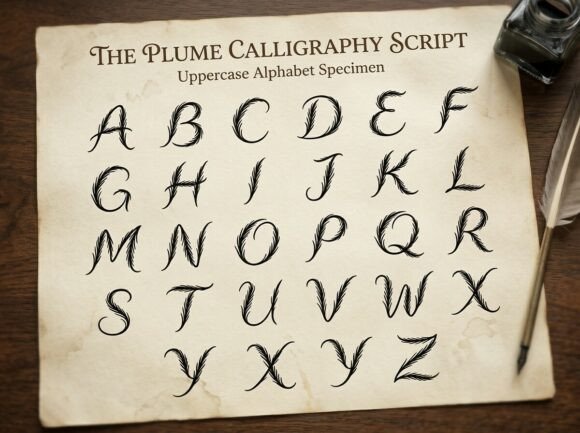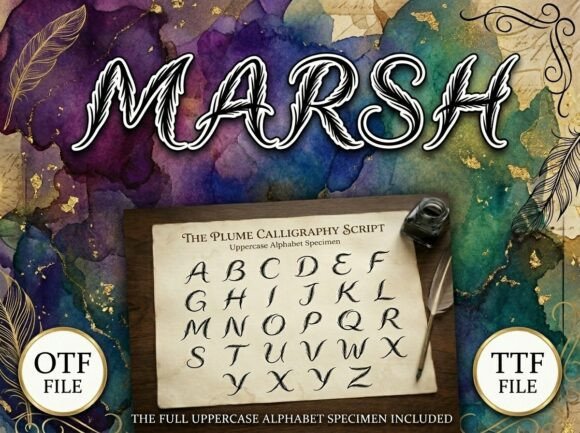
Introduction to Marsh Font
As a designer, you’ve probably been there – staring at a blank canvas, trying to come up with the perfect idea for a creative project. The blank page can be daunting, but sometimes all it takes is the right font to spark inspiration. For those who want to make a statement, Marsh Font is here to save the day.
This stunning decorative display font is designed to be the center of attention, featuring unique artistic elements and a strong visual personality. With Marsh Font, you’ll be able to add a touch of high-quality elegance to any design, from bold headlines to artistic logos and creative packaging. Whether you’re working on a design project or just looking for a unique design resource, Marsh Font is a valuable addition to your toolkit.
With its polished finish and versatility, Marsh Font is the perfect choice for designers who want to break away from the ordinary and create something truly special. And the best part? With its transparent background and professional standard files, you can use Marsh Font with confidence, knowing it will look great on any device.
Key Features of Marsh Font
- High-quality, professional font suitable for creative projects and design resources.
- Includes a range of font sizes, from 12 to 72 points, to accommodate various design requirements.
- Designed with a high resolution of 300 DPI, ensuring crisp and clear text rendering.
- Unique characteristics include a modern, elegant design aesthetic and a wide range of font styles to suit various creative projects.
Honest Review: Marsh Font
As a designer, I’m always on the lookout for high-quality design resources to elevate my creative projects. Marsh Font has been a recent addition to my toolkit, and I’m excited to share my honest review with you.
- ✨ The Marsh Font has a beautiful, hand-drawn feel that’s perfect for creative projects that require a touch of personality.
- ✨ The font is available in a range of weights, from light to bold, making it easy to find the perfect match for your design.
- ⚠️ The font may not be suitable for large-scale text or titles, as the hand-drawn feel can become overwhelming.
Overall, I’m impressed with the Marsh Font’s unique design and versatility. While it may have some limitations, it’s a great addition to any designer’s toolkit. With its high-quality design and transparent background option, it’s perfect for creative projects that require a touch of personality and sophistication.
How to Use Marsh Font
The Marsh Font is a high-quality, unique design resource perfect for creative projects that require a touch of elegance and sophistication. With its transparent background and smooth curves, this font is ideal for designers looking to add a professional touch to their work.
For the best results, use the Marsh Font in conjunction with other high-quality design elements. Experiment with different font sizes, colors, and combinations to find the perfect look for your project.
The Marsh Font is perfect for a variety of design projects, including:
- Blog and website headers